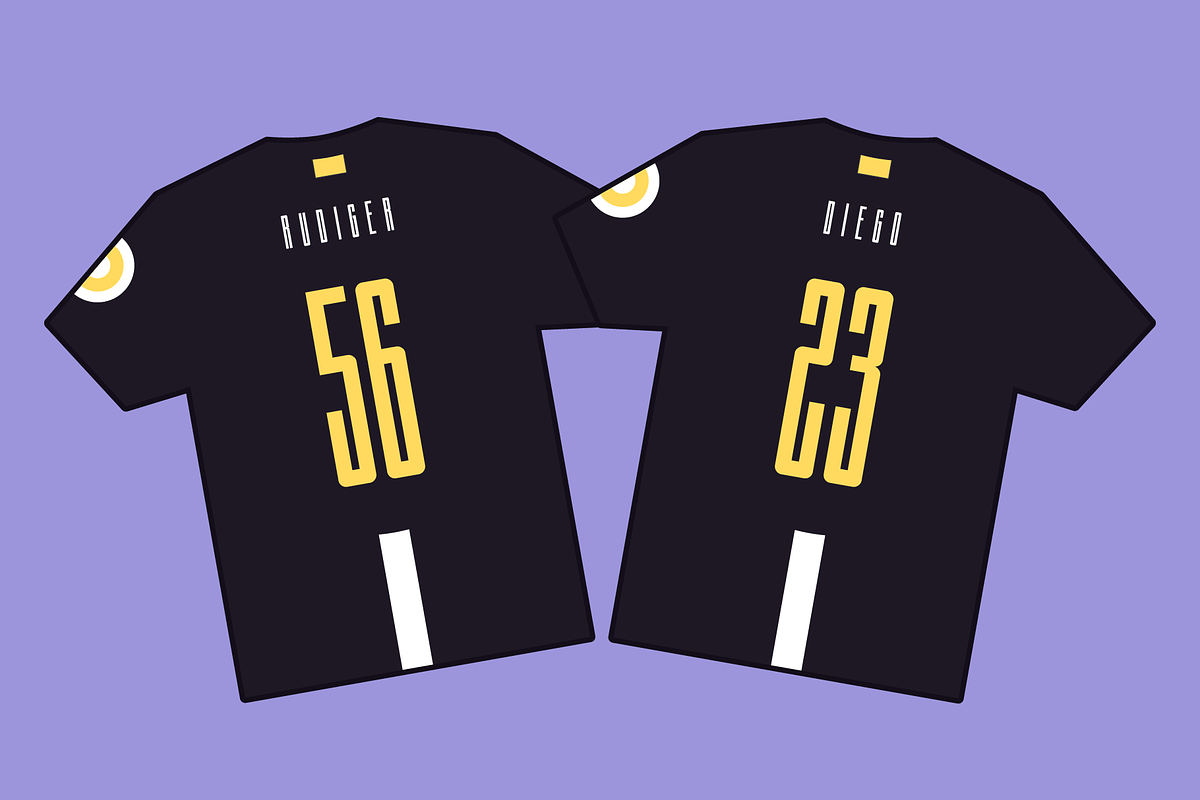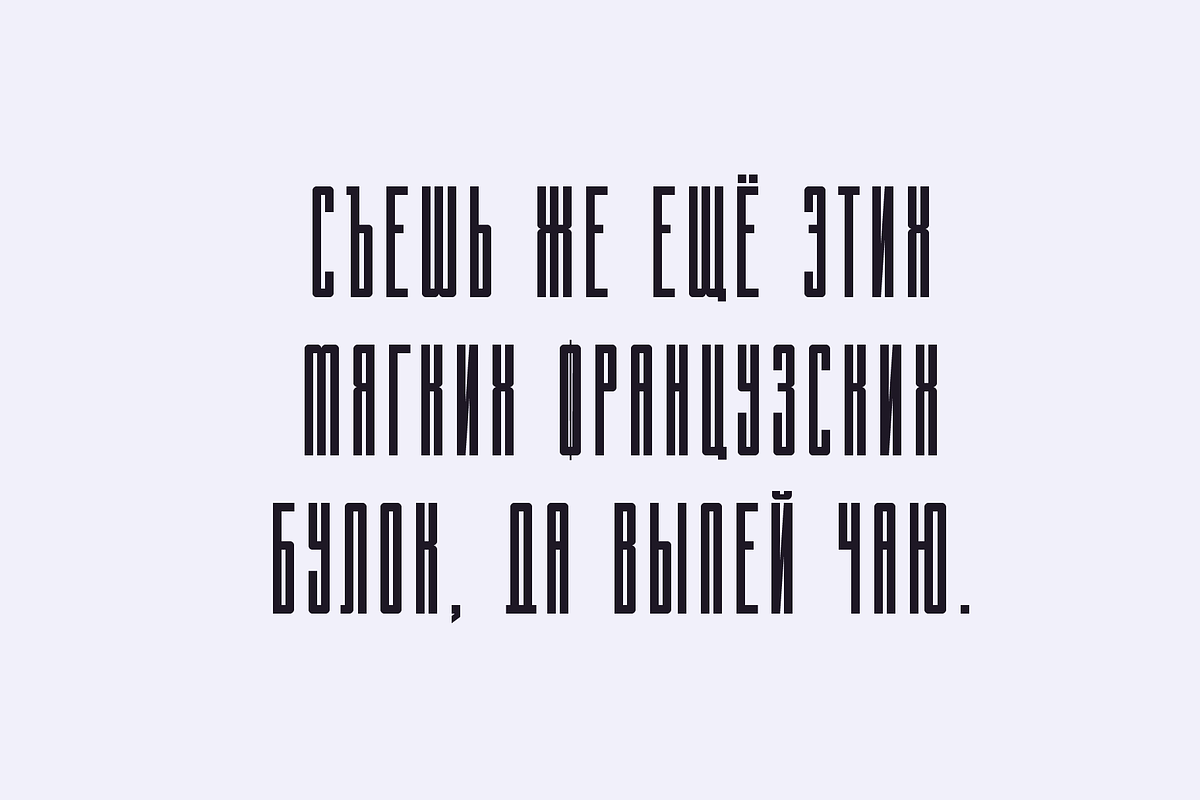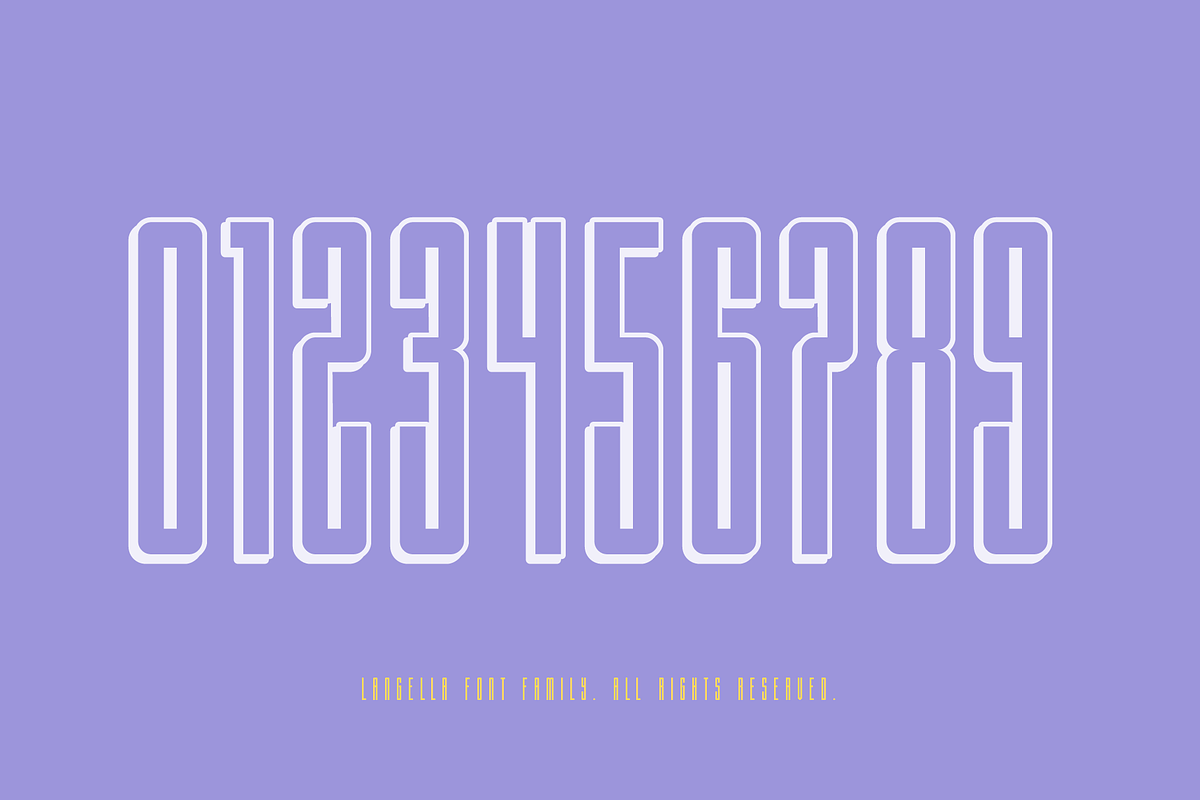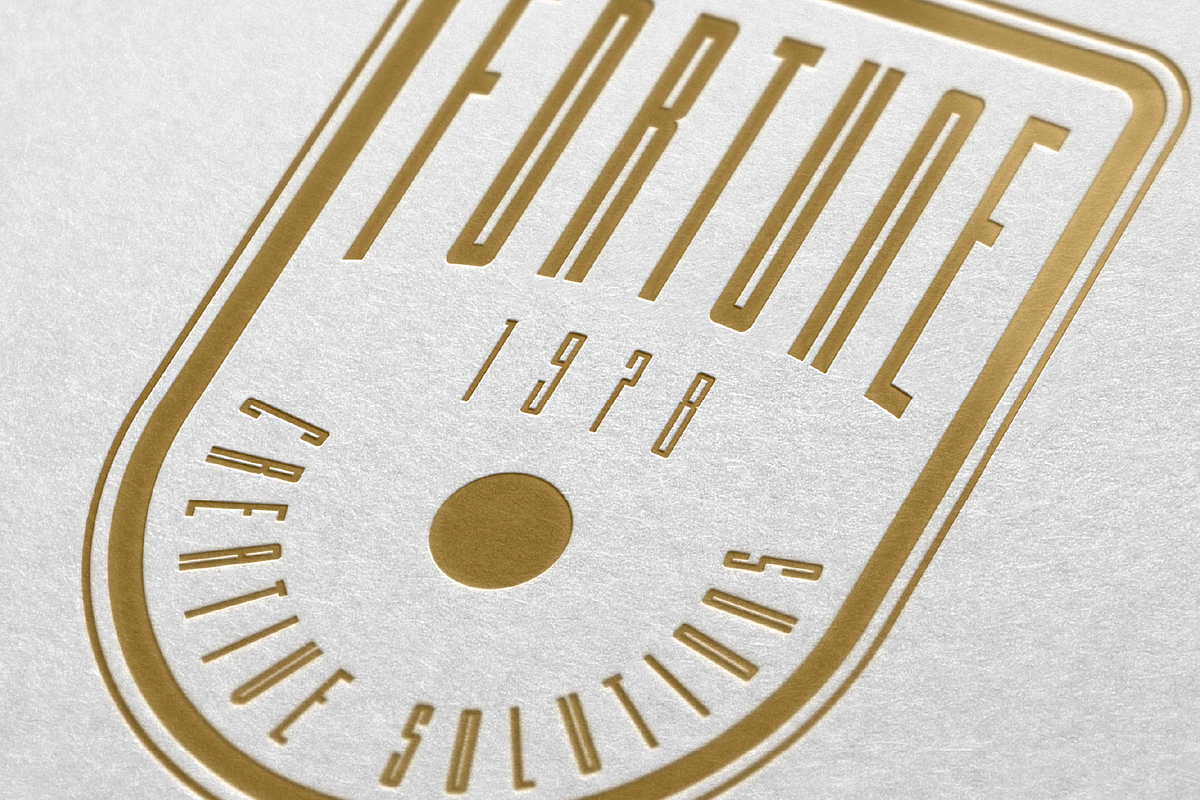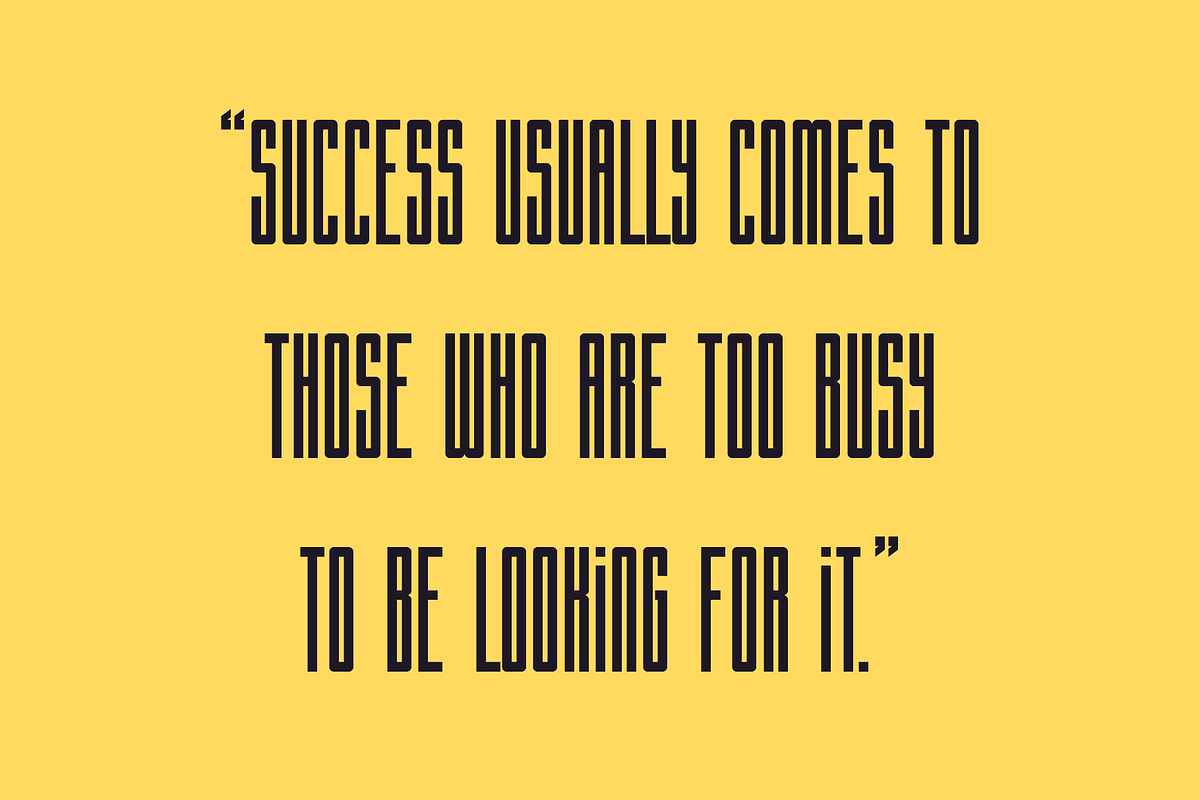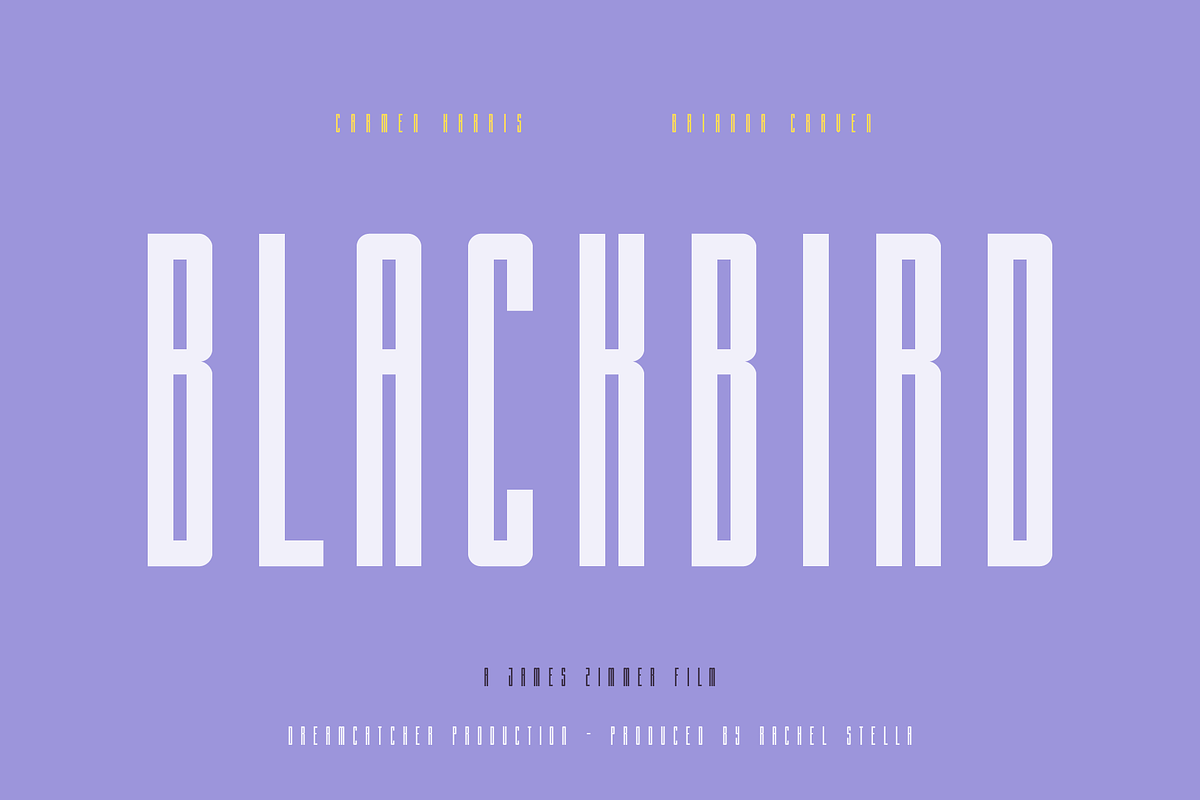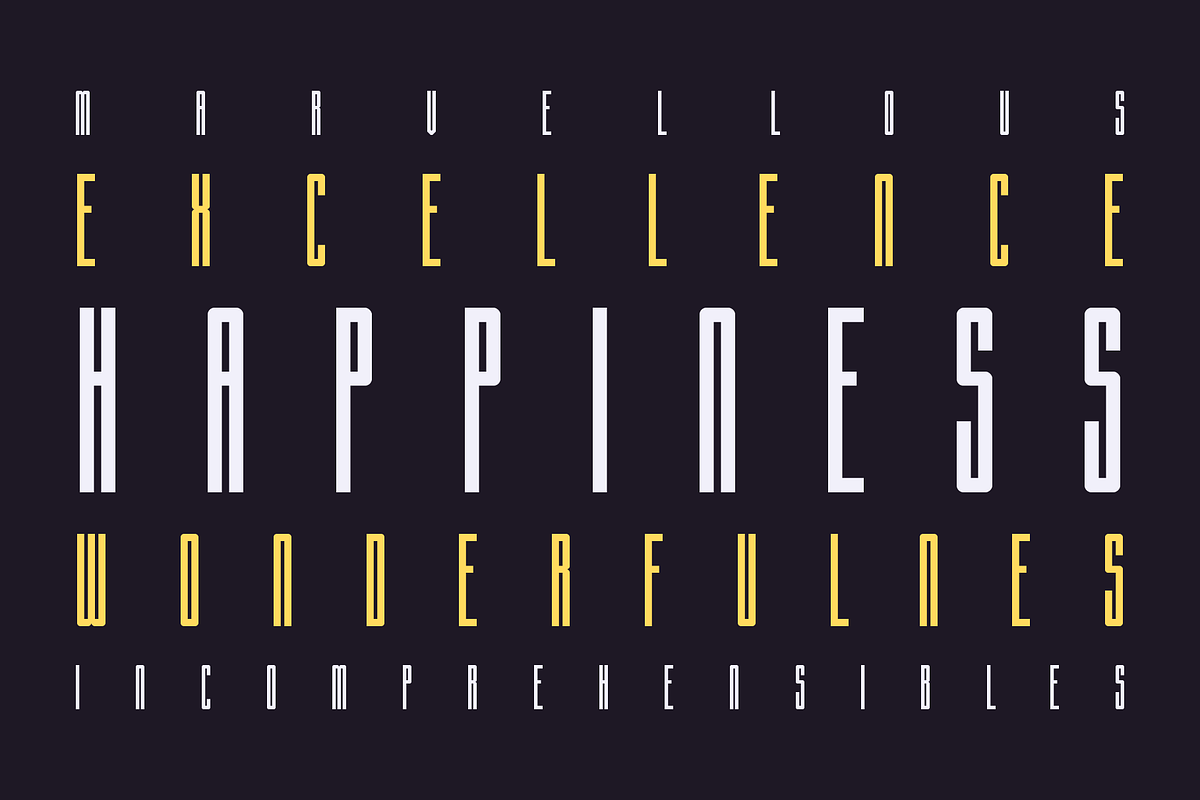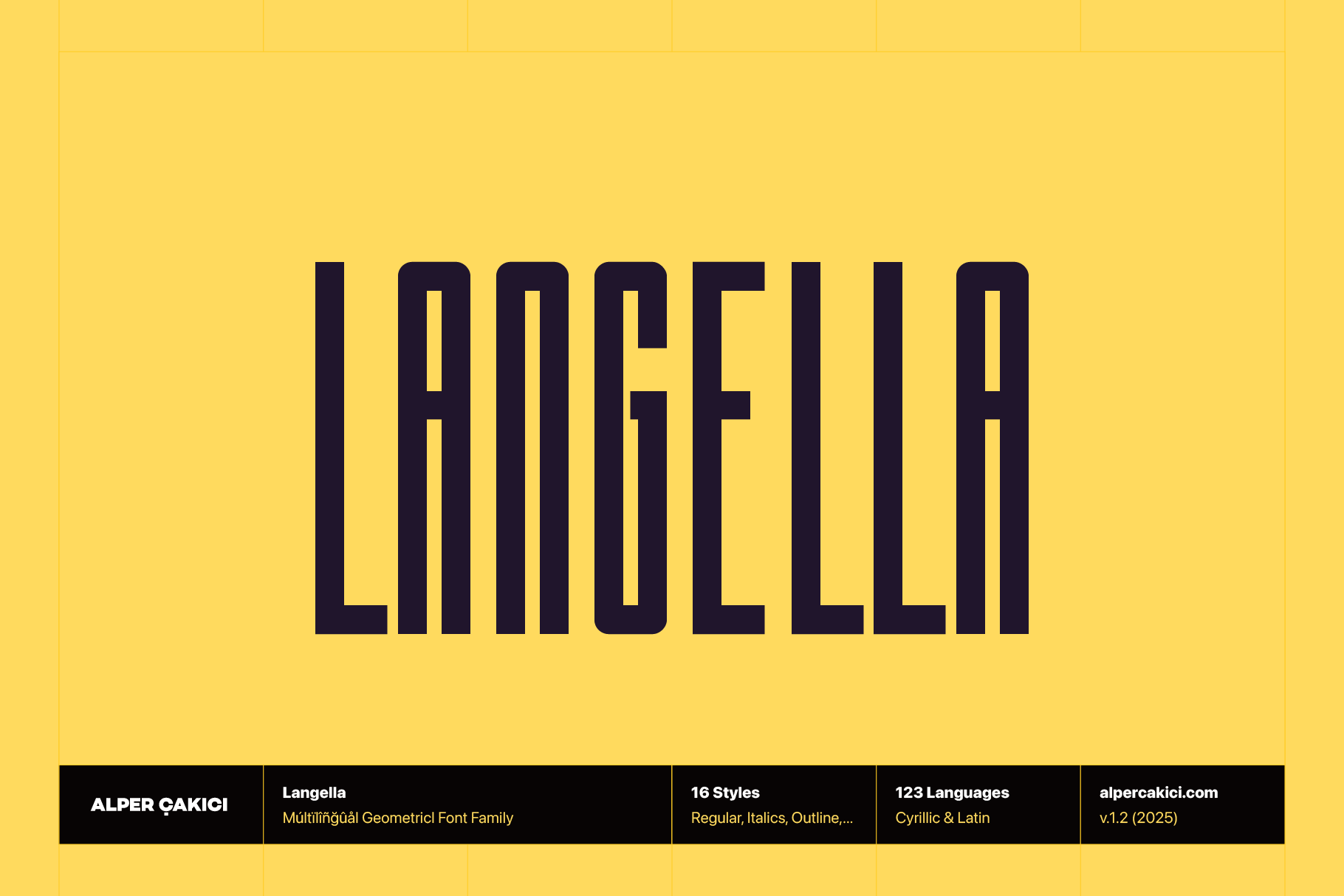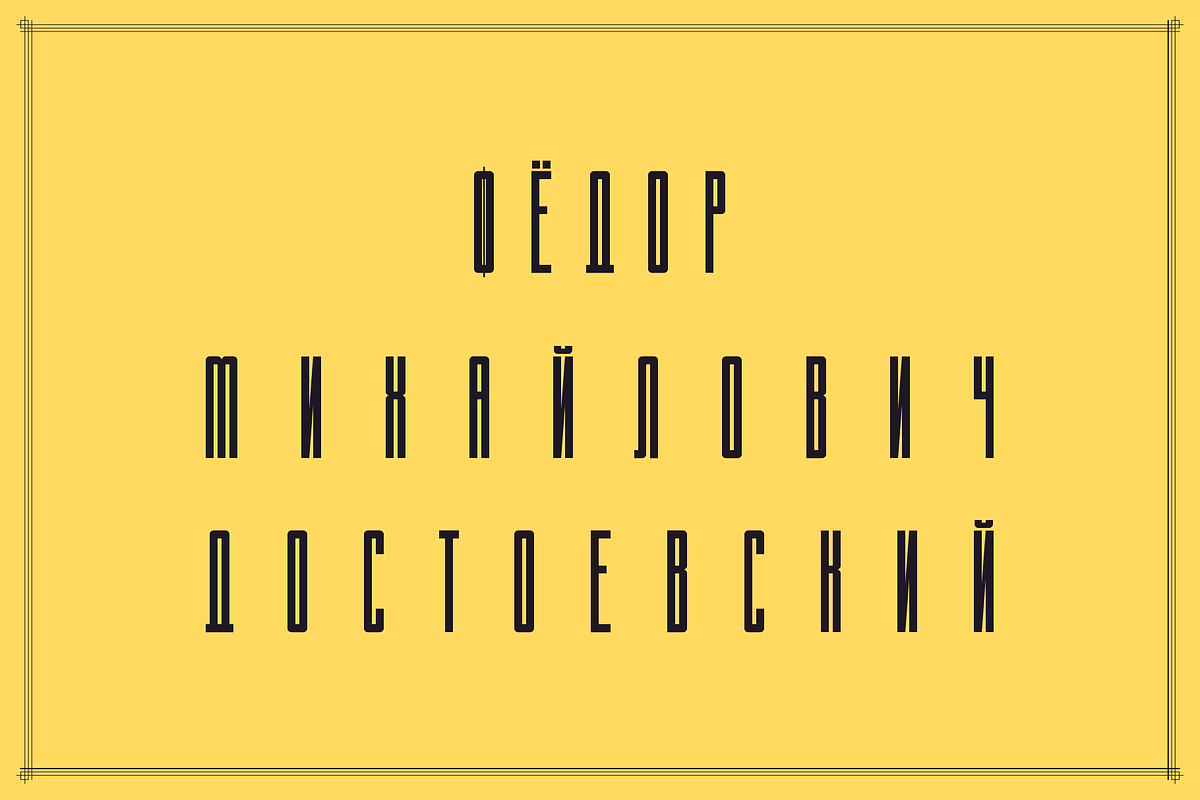
Langella Tall Font Family (16 Fonts)
Langella is a carefully crafted tall and thin display font family designed to make a striking impression. It features Roundand Sharp Cornered versions, each offering a modern yet elegant touch suitable for a wide range of creative projects.
With 16 distinct styles — including Italic, Outline, Outline Italic, Regular, Rough, Rough Italic, Shadow, Shadow Italic, Sharp, Sharp Outline, Sharp Italic, Sharp Outline Italic, Sharp Rough, Sharp Rough Italic, Sharp Shadow, and Sharp Shadow Italic — Langella offers exceptional versatility for any visual identity.
Meticulously designed with excellent kerning and multilingual support for 123 languages, including full Cyrillic support, Langella is perfect for both digital and print applications.
Use Langella to create impactful titles, posters, book covers, movie graphics, branding materials, social media visuals, editorials, and packaging designs. Its tall, elegant proportions and contemporary structure make it stand out effortlessly in any design context.